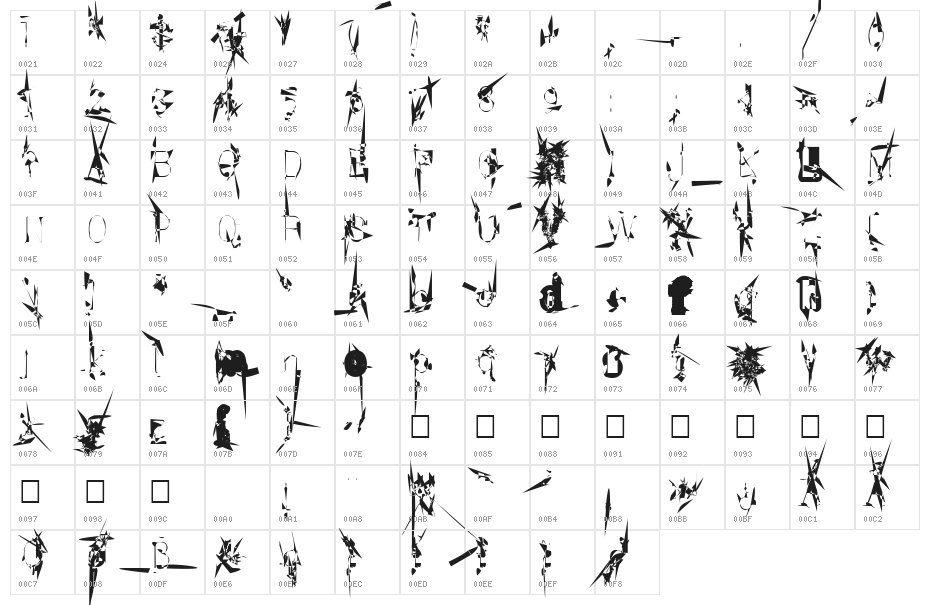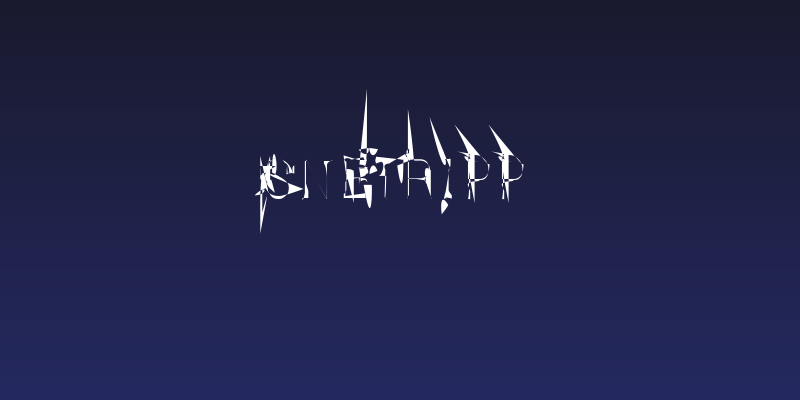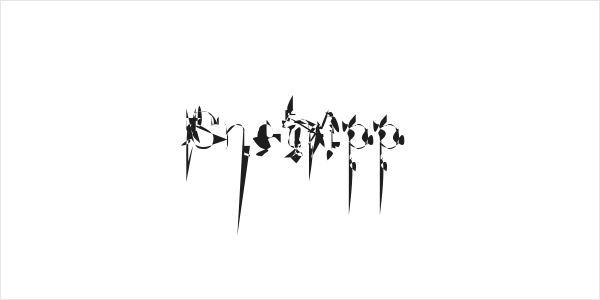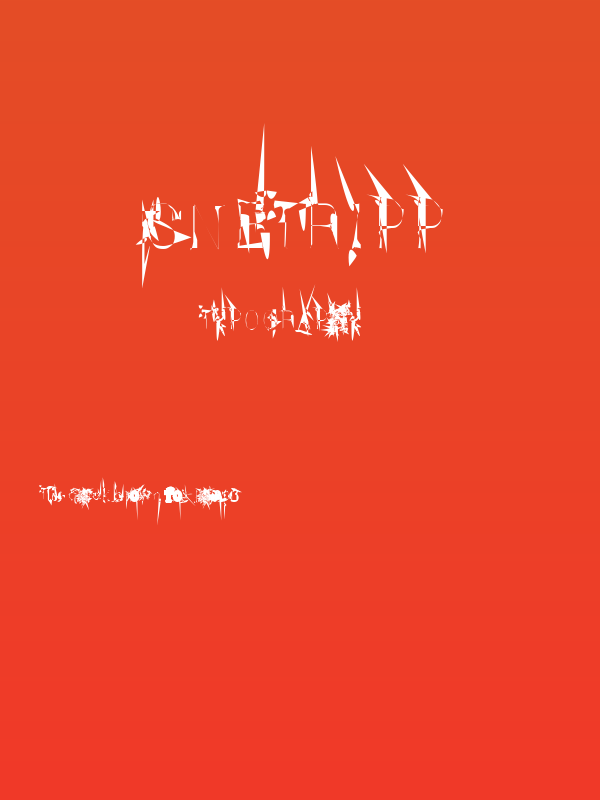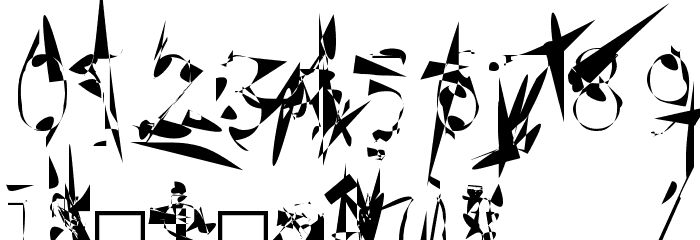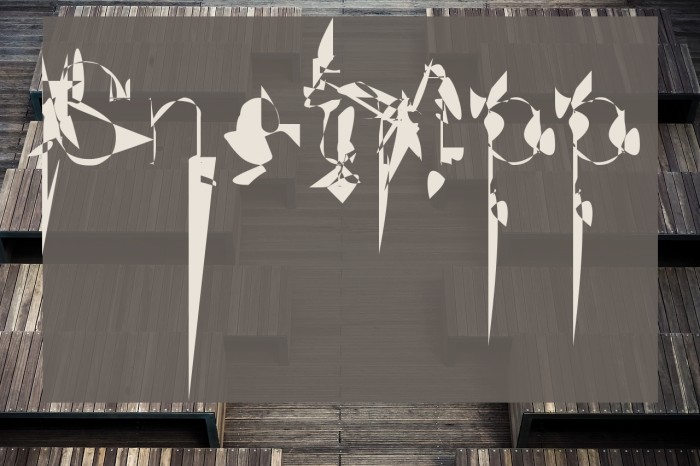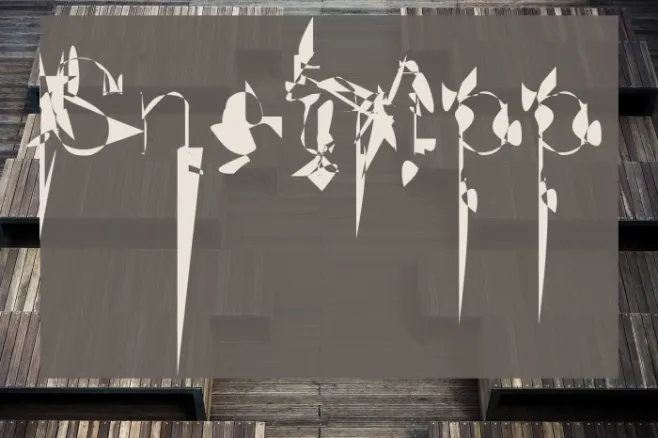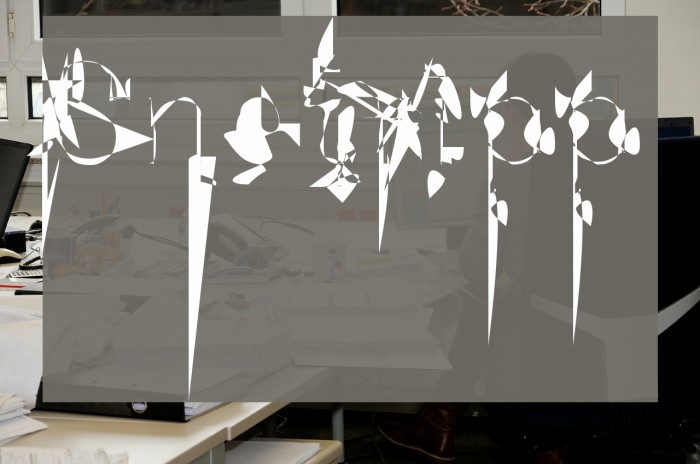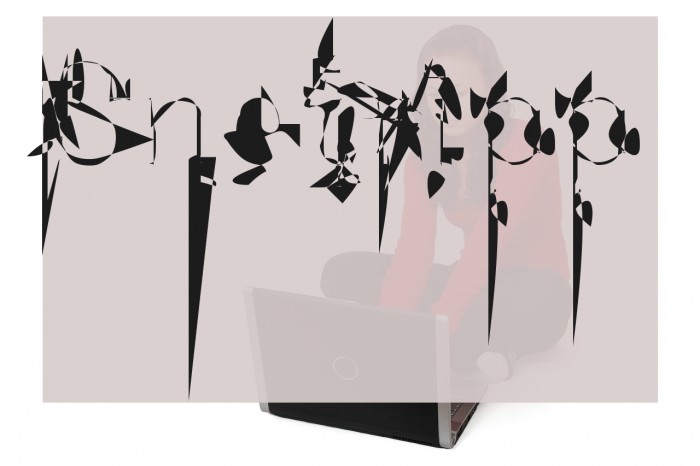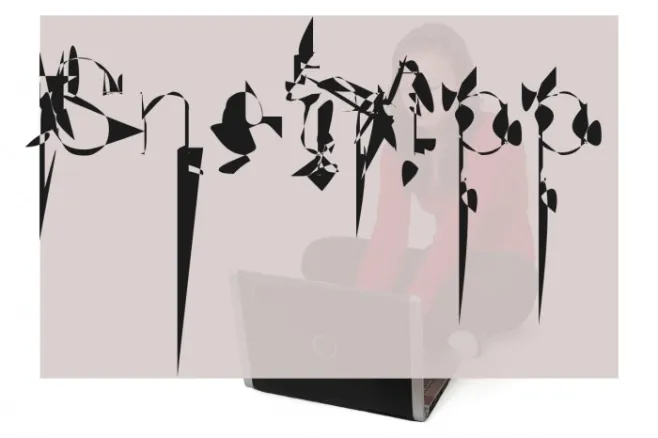
Snetripp Font
Snetripp Description
This font features an extremely abstract and chaotic design, characterized by sharp, jagged edges and fragmented letterforms. The characters are heavily distorted, making them difficult to read, with an aggressive and dynamic appearance. The strokes are irregular, with varying thicknesses and unexpected angles, creating a sense of movement and tension. This font is more of an artistic expression than a practical typeface, with its unconventional style pushing the boundaries of traditional typography.
| Use Case | Logos, Artistic designs |
| Proposed Projects | Ideal for experimental art projects, avant-garde posters, or any design requiring a bold, unconventional aesthetic. |